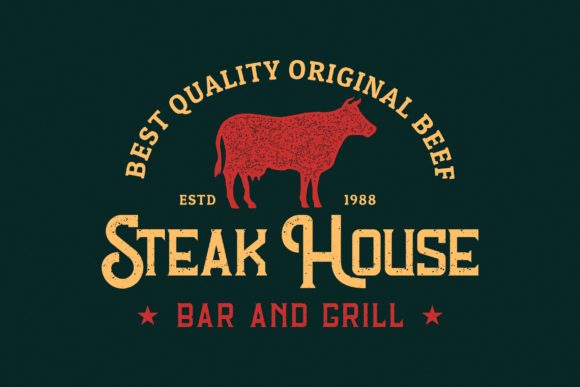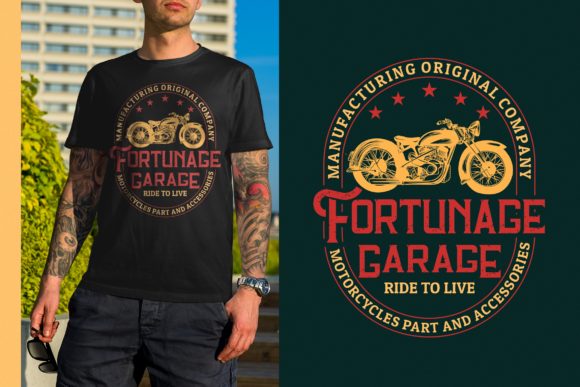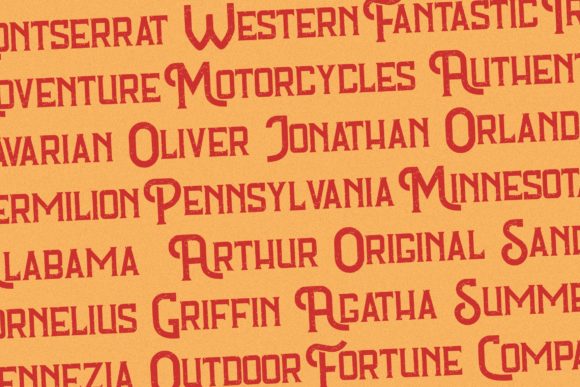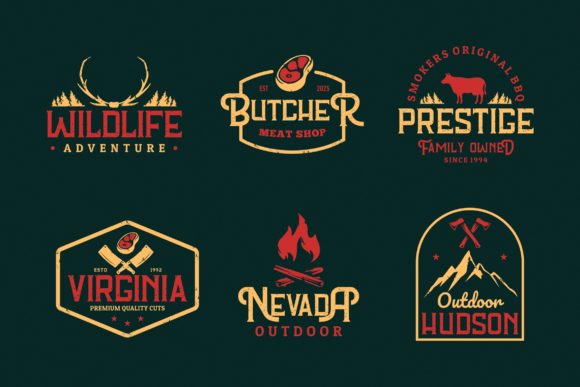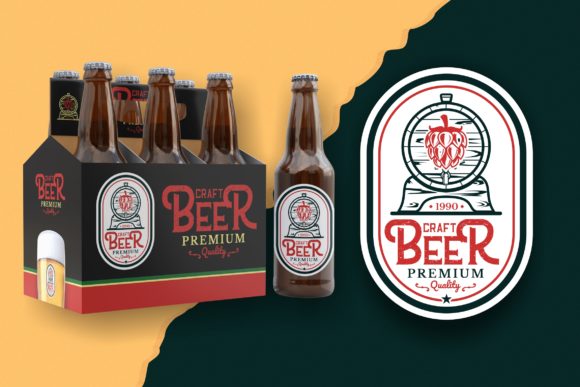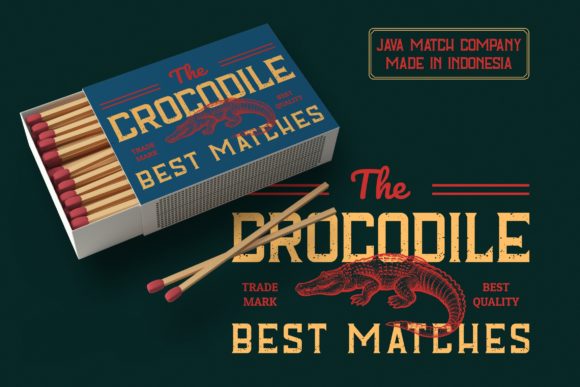
Introducing Fortunate Font: The Ultimate Display Font for Bold and Sophisticated Designs
In the world of typography, a font can make or break a design. A well-crafted font can elevate a brand’s identity, convey its message, and leave a lasting impression on its audience. For designers and crafters looking for a font that exudes confidence and sophistication, look no further than Fortunate Font. This masterfully designed display font is a true must-have for anyone looking to add a touch of boldness and elegance to their designs.
What Makes Fortunate Font Stand Out?
Fortunate Font looks bold, yet sophisticated, making it the perfect addition to any design project that requires a touch of luxury and refinement. Its chunky and extended characters are particularly adept at making a statement, making it ideal for use in logos, branding, packaging design, and much more. Whether you’re working on a high-end fashion brand, a premium product, or a sophisticated advertising campaign, Fortunate Font is the perfect choice.
Key Features of Fortunate Font
- Bold and Sophisticated: Fortunate Font boasts a bold and sophisticated style that is sure to turn heads. Its chunky and extended characters give it a unique and eye-catching appearance that will set your designs apart from the rest.
- Versatile: This display font is incredibly versatile and can be used in a variety of design applications, including logos, branding, packaging design, and more.
- High-Quality: Fortunate Font is a high-quality font that is designed to deliver exceptional results. Its precise craftsmanship ensures that it will look great in any design, whether it’s used in print or digital formats.
Why Designers and Crafters Love Fortunate Font
Designers and crafters love Fortunate Font for its unique combination of boldness and sophistication. It’s the perfect font for anyone looking to add a touch of luxury and refinement to their designs. Here are just a few reasons why:
- Ease of Use: Fortunate Font is incredibly easy to use, making it perfect for designers and crafters of all skill levels.
- Customization: This font is highly customizable, allowing you to adjust its size, color, and style to fit your design needs.
- Timeless: Fortunate Font has a timeless quality that ensures it will remain relevant for years to come. Its classic style ensures that it will never go out of fashion.
How to Use Fortunate Font in Your Designs
Using Fortunate Font in your designs is easy. Here are a few tips to get you started:
- Pair it with Other Fonts: Fortunate Font pairs well with other fonts, making it easy to create a unique and eye-catching design.
- Experiment with Colors: Don’t be afraid to experiment with different colors and textures to add depth and interest to your design.
- Use it in Headlines: Fortunate Font is perfect for use in headlines, where its bold and sophisticated style can really make an impact.
In conclusion, Fortunate Font is a must-have for designers and crafters looking for a bold and sophisticated display font. Its chunky and extended characters make it perfect for use in logos, branding, packaging design, and much more. With its ease of use, customization options, and timeless style, Fortunate Font is the perfect addition to any design project. So why wait? Download Fortunate Font today and start creating stunning designs that will leave a lasting impression on your audience.